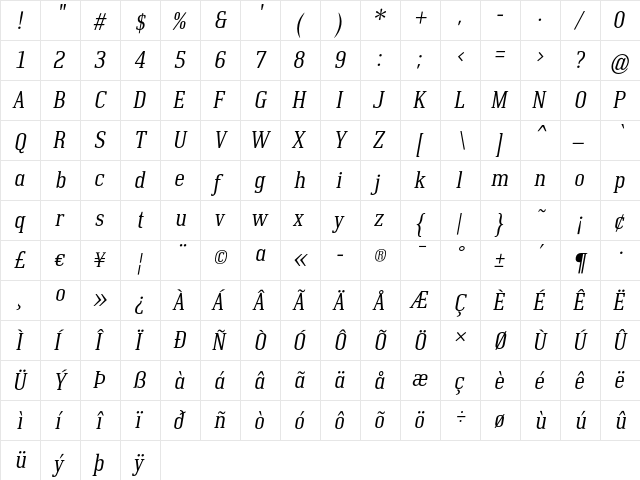
Krasivyi Italic
Design Context for Krasivyi Typeface
Krasivyi is a composed and adaptable typeface that performs quietly and consistently across a wide range of design contexts. Its italic angle brings a sense of urgency and motion to the letterforms.
Pro Tip: Use Krasivyi for emphasis, pull quotes, and subheadings where its slanted energy can add rhythm to the layout.